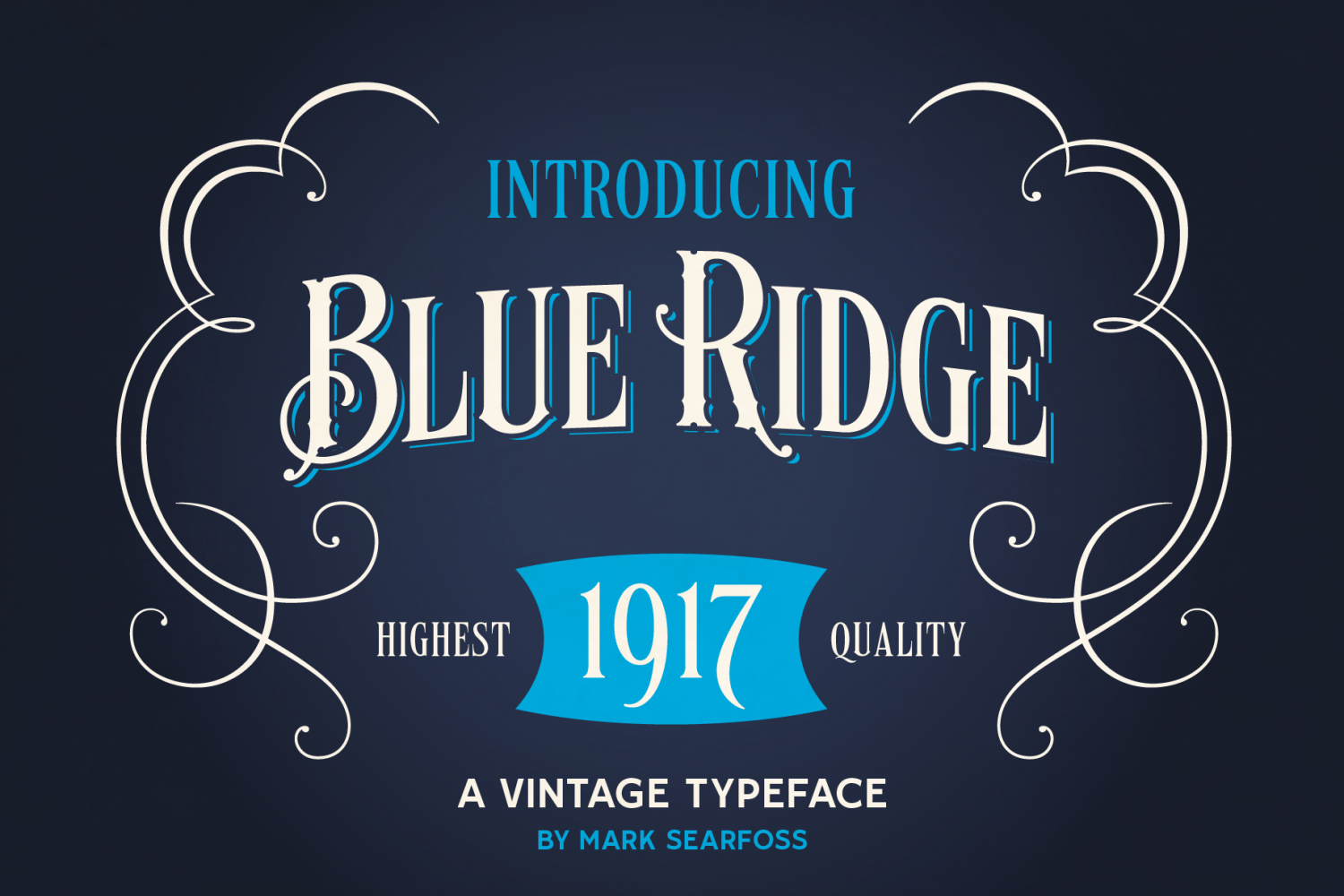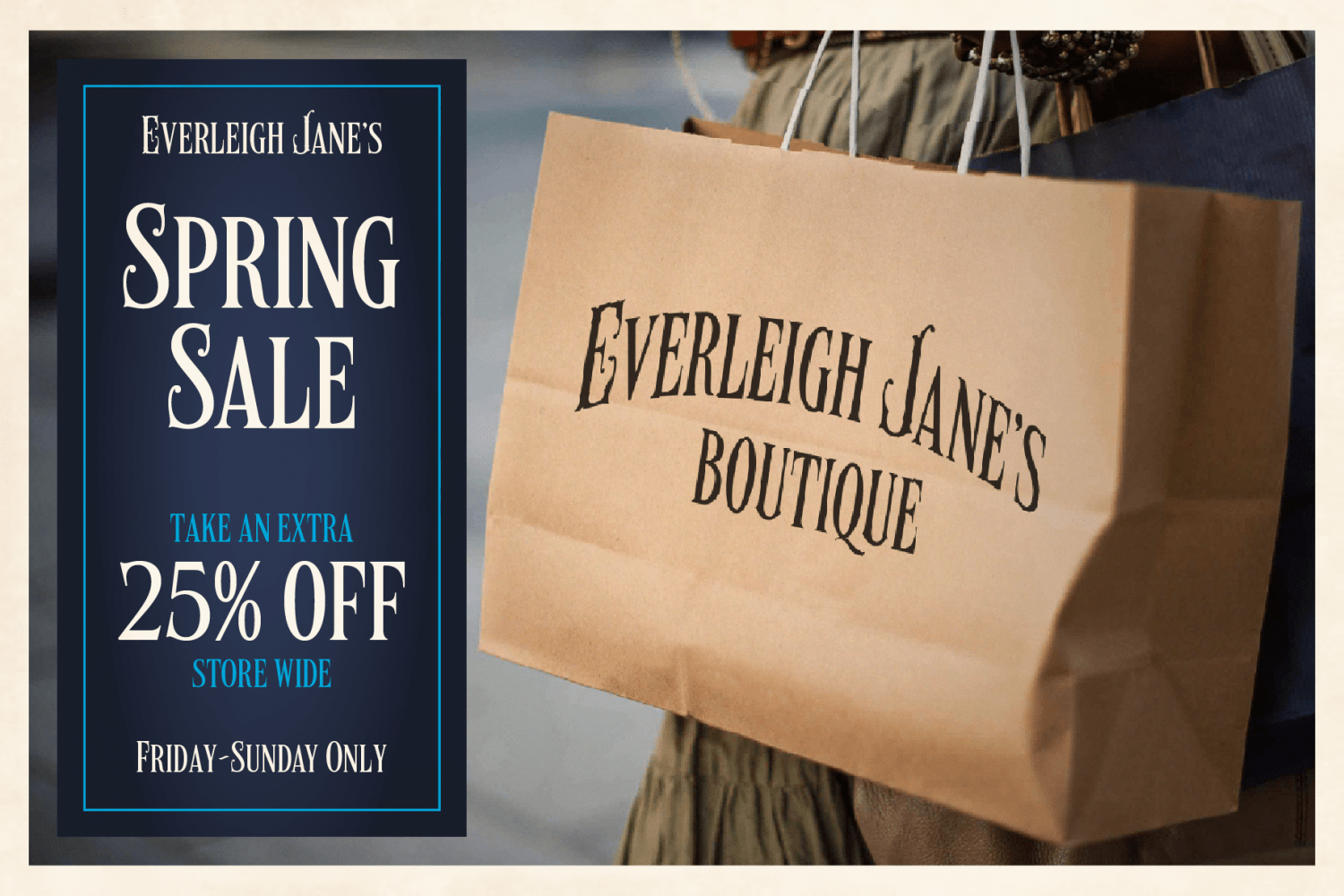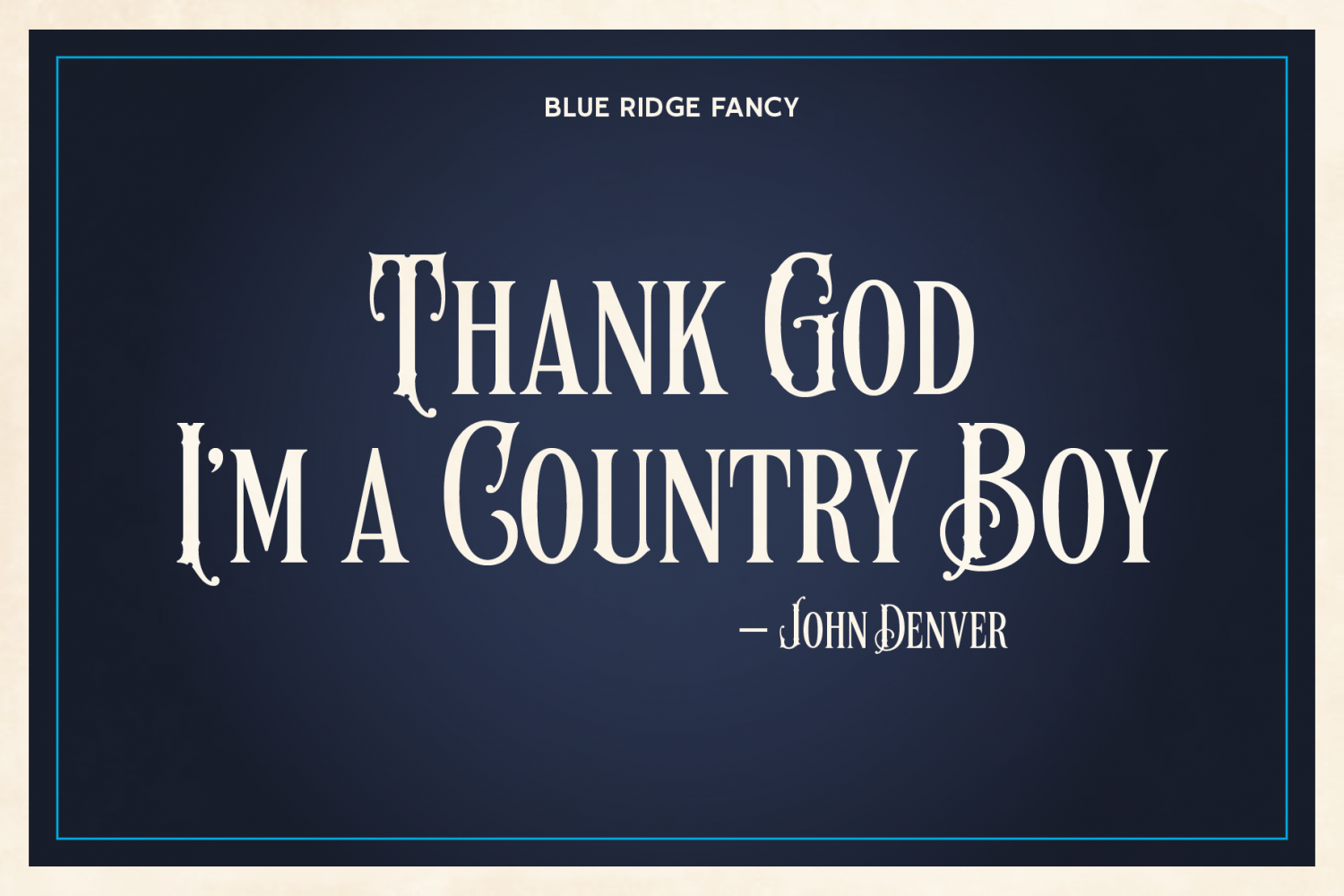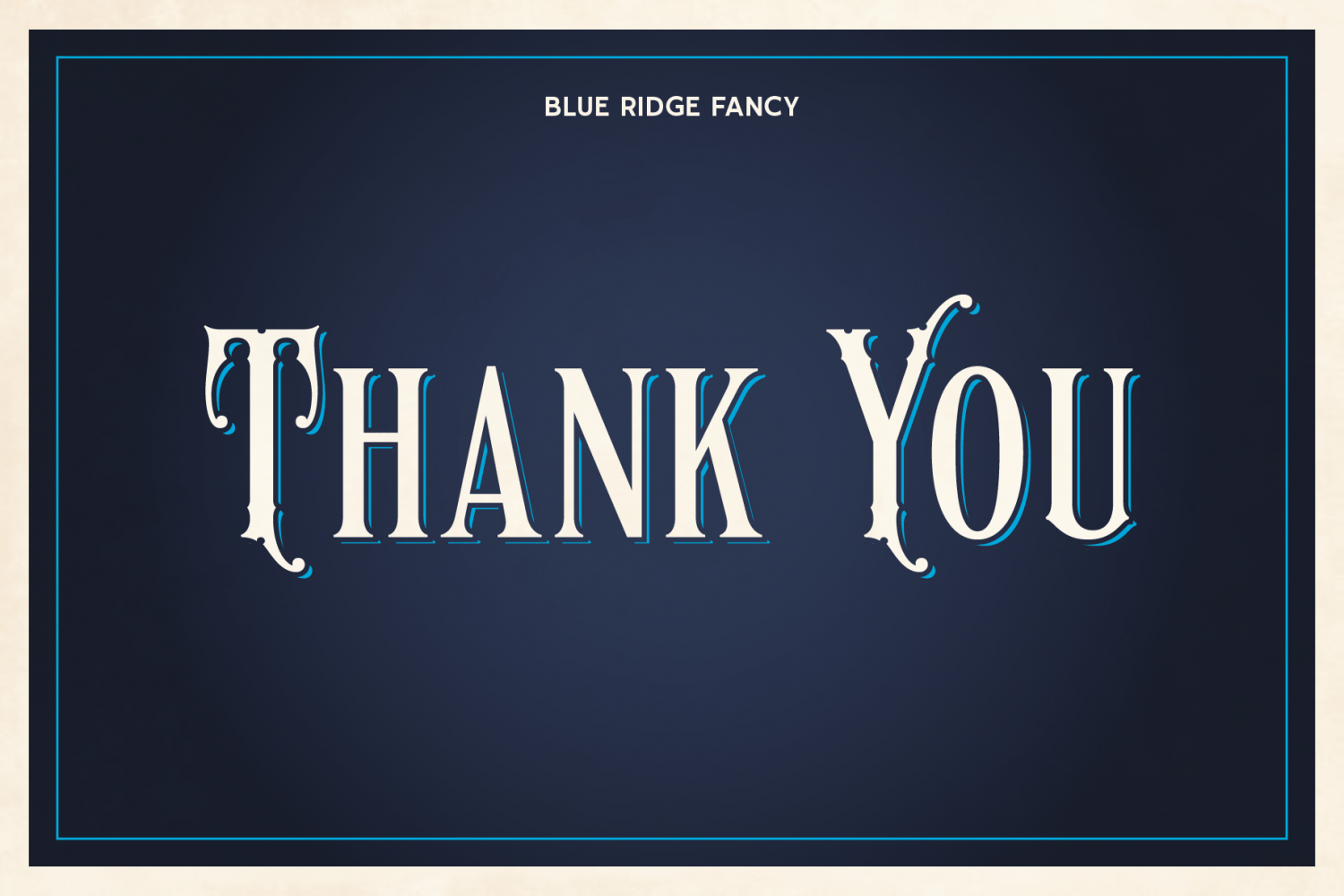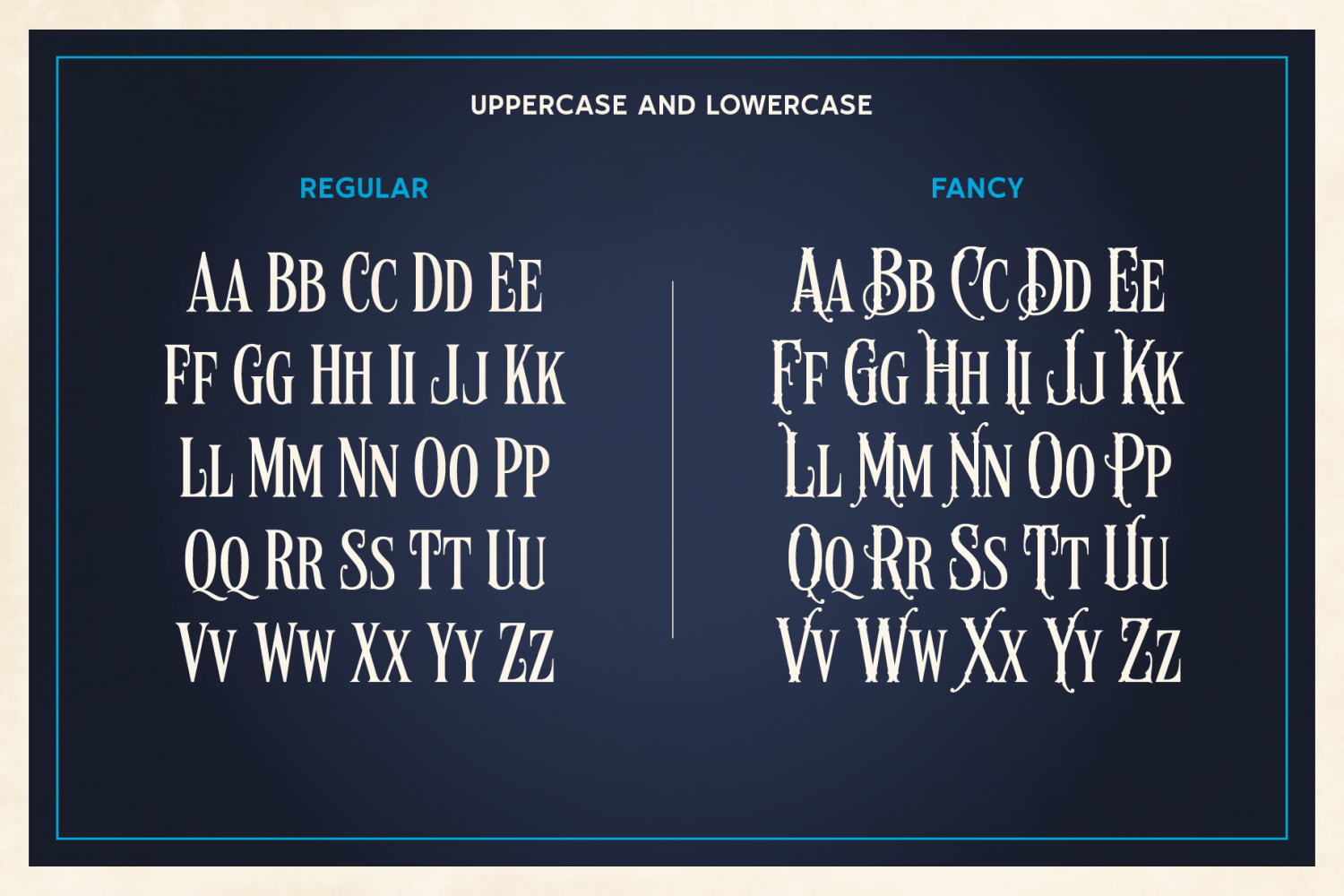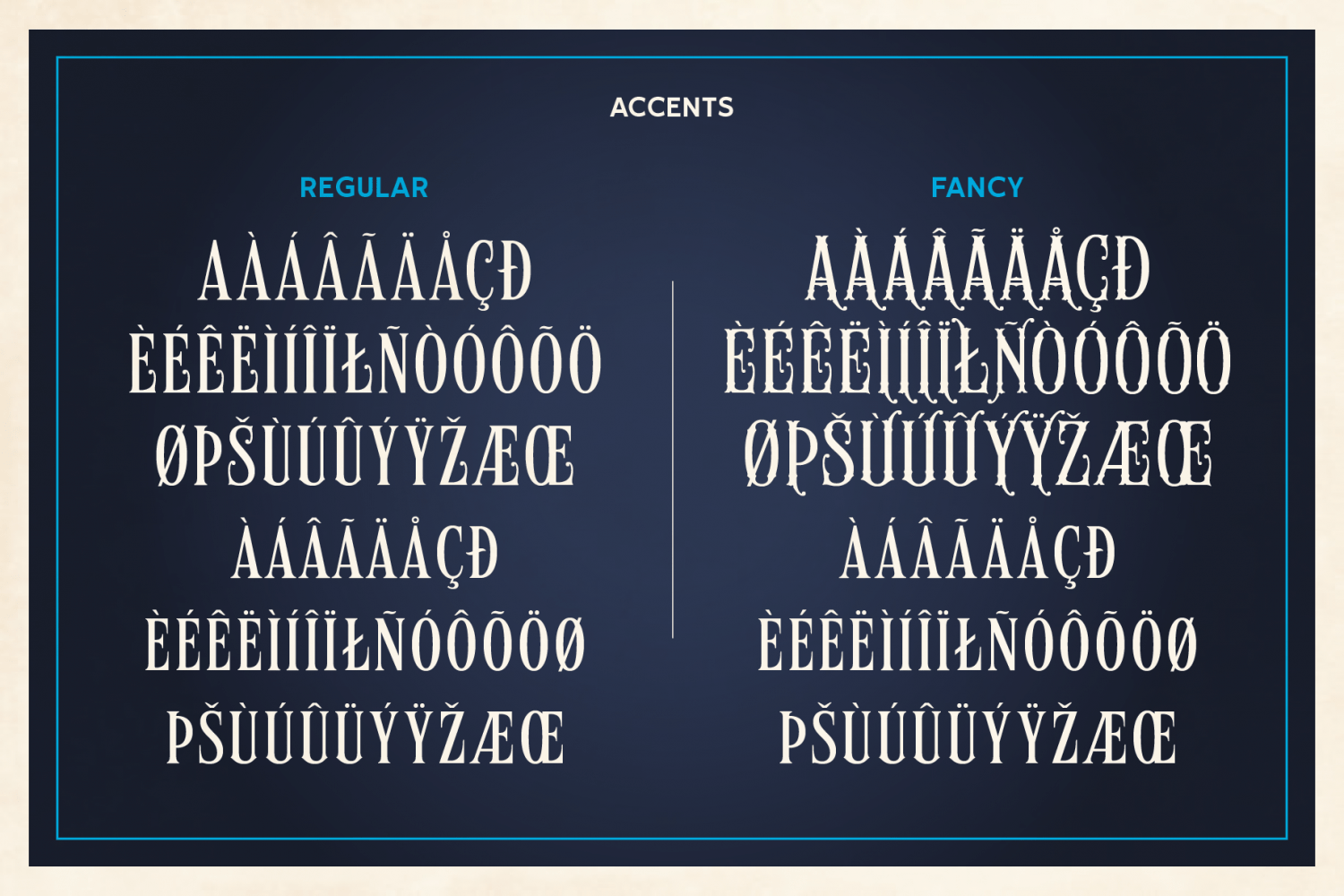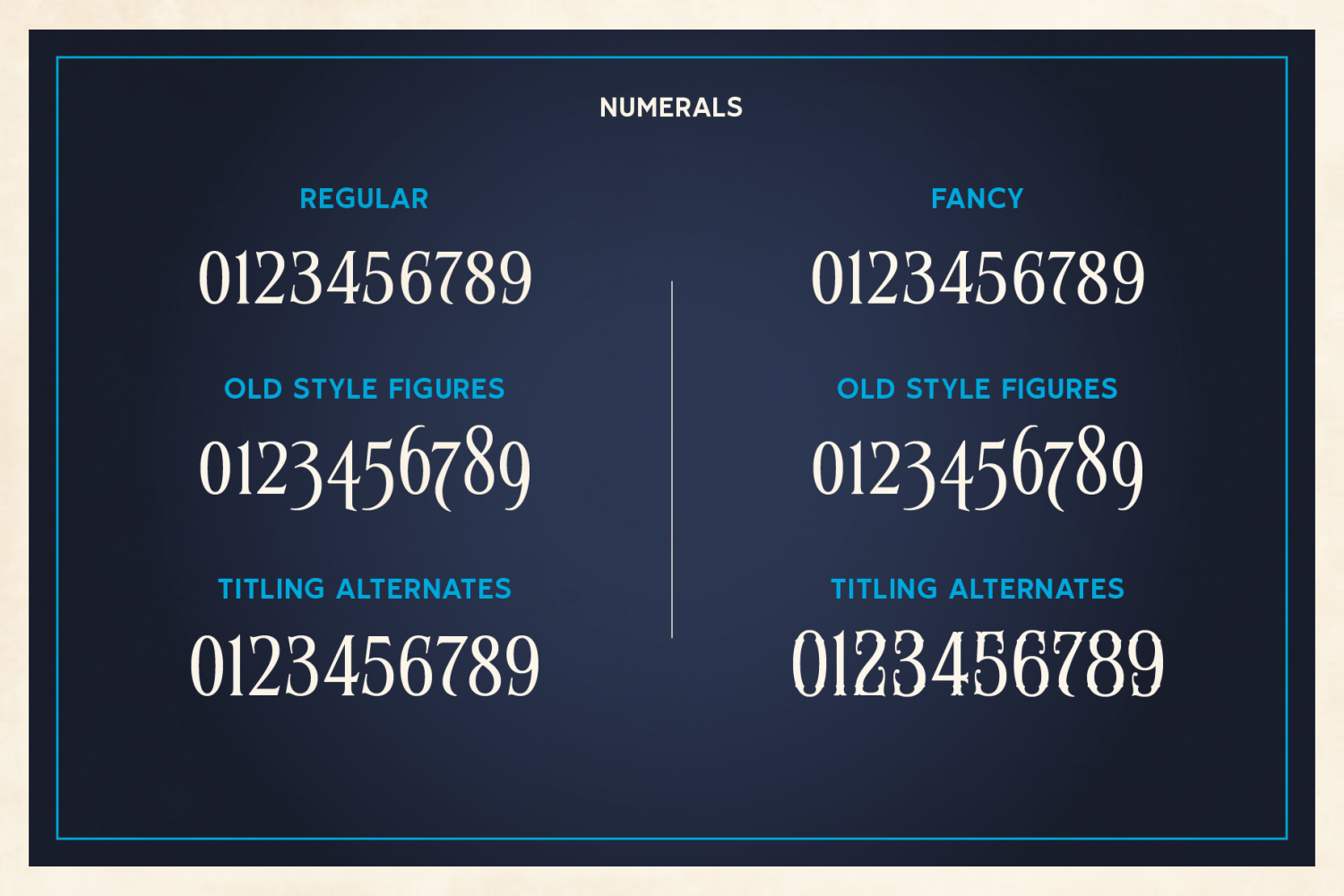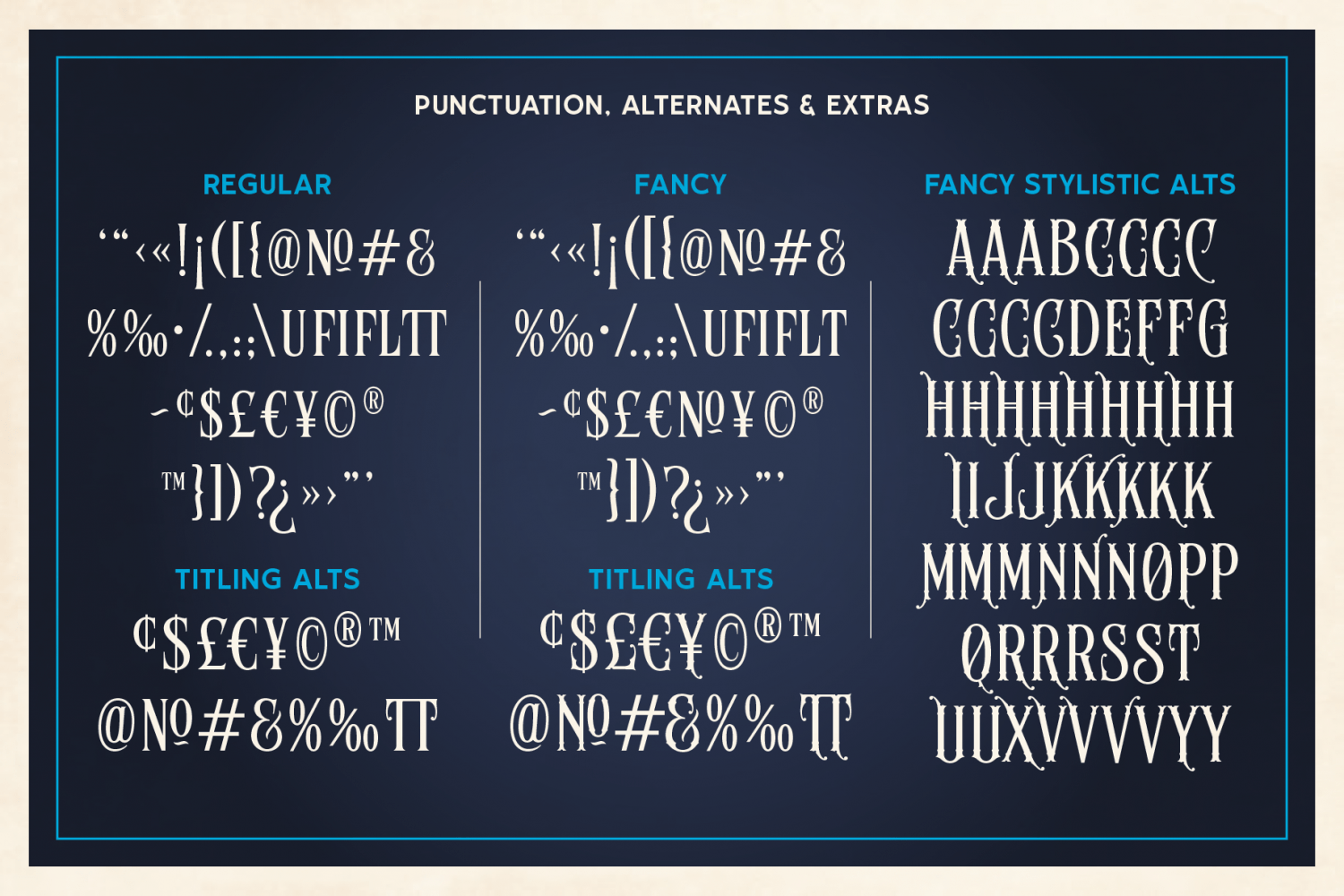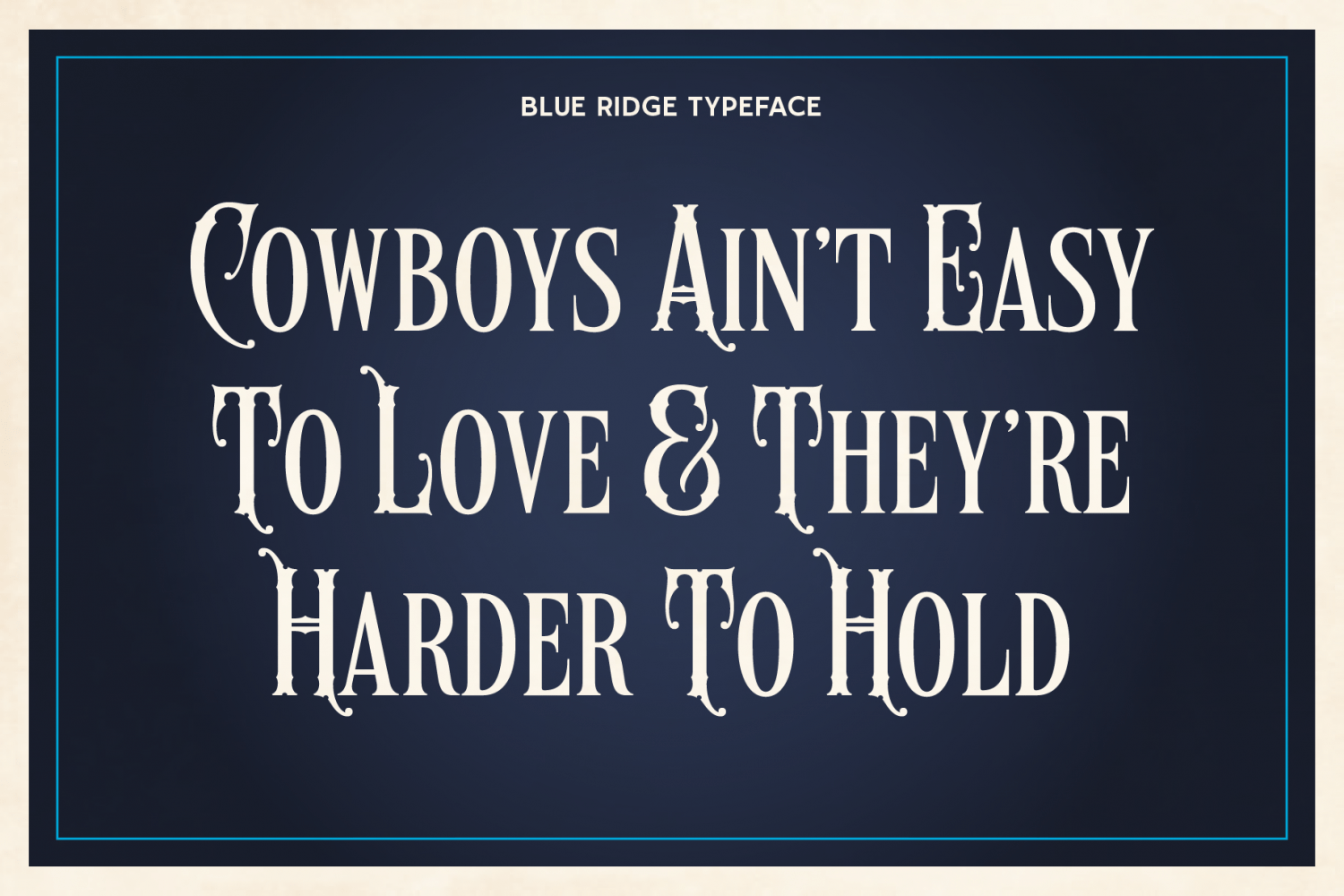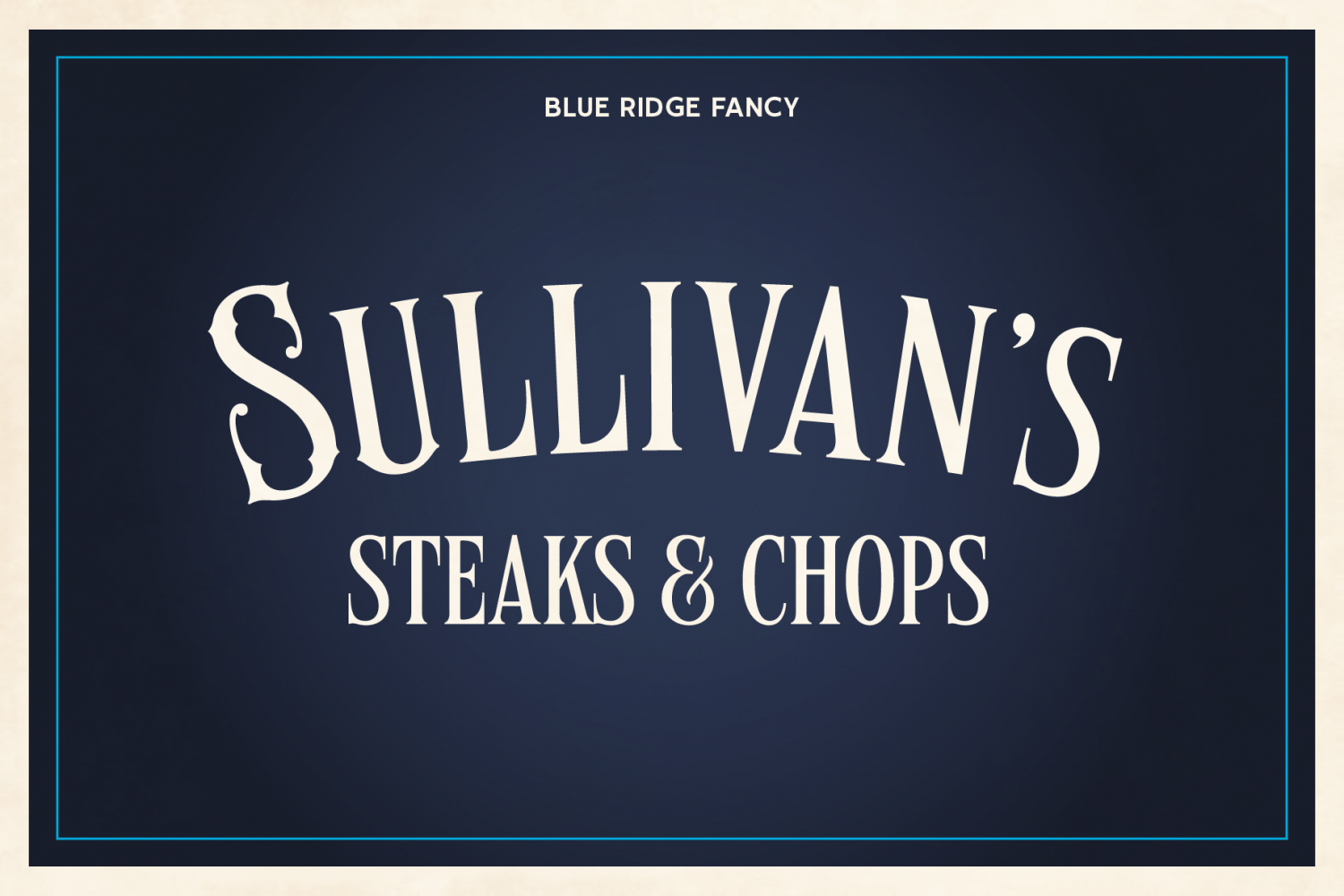
Blue Ridge
Blue Ridge is a vintage typeface based primarily on late 1800s to early 1900s American whiskey labels. It features tall thin letters with light decoration in the capitals, while the Fancy version caps add even more decorative style. Both versions also include titling figures as well as old style figures for added versatility when designing. Blue Ridge is great for creating labels, packaging and logo, or giving any design a burst of vintage detail.
Features:
- Upper and lowercase A-Z
- Numerals and punctuation
- Old Style Figures
- Titling Figures
- Accent characters
- Blue Ridge Regular
- 45 Alternates
- Blue Ridge Fancy
- 102 Alternates
- 2 Bonus Ligatures